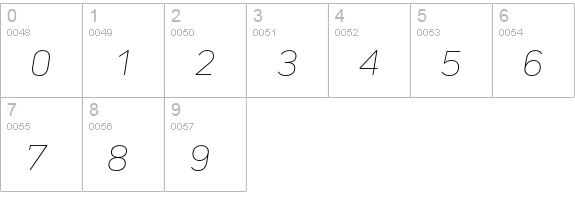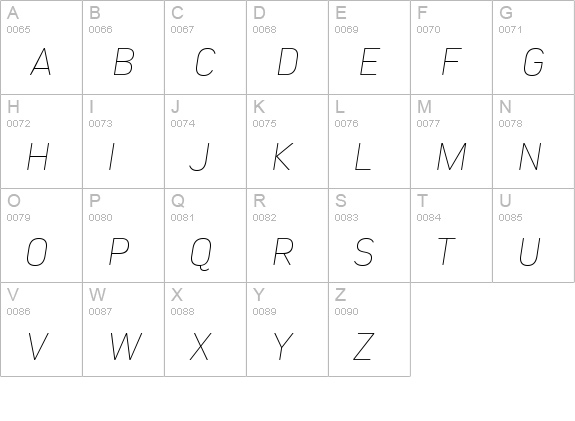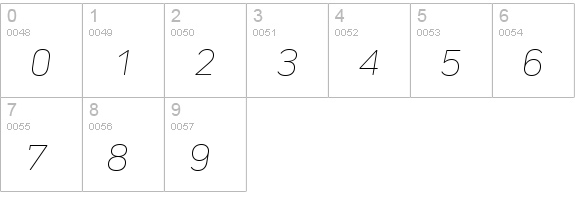
Kiro Thin Italic is a delicate, low-contrast, italic variant in the Kiro typeface family \xE2\x80\x94 well suited to fashion editorial, minimal branding, and high-contrast display.
Introducing Kiro Thin Italic font, a sleek and elegant typeface perfect for adding a touch of sophistication to your design projects. With its slender and stylish letters, Kiro Thin Italic exudes a sense of modernity and refinement. This font is ideal for use in various design applications such as branding, editorial design, web design, and more. Its italicized style adds a dynamic and expressive quality to your text while maintaining a sense of clarity and readability. Best of all, Kiro Thin Italic font is available for free download at FontsMarket.com. So you can easily access this beautiful typeface and elevate your designs without any cost. Don't miss out on the opportunity to enhance your projects with the effortlessly chic Kiro Thin Italic font today!